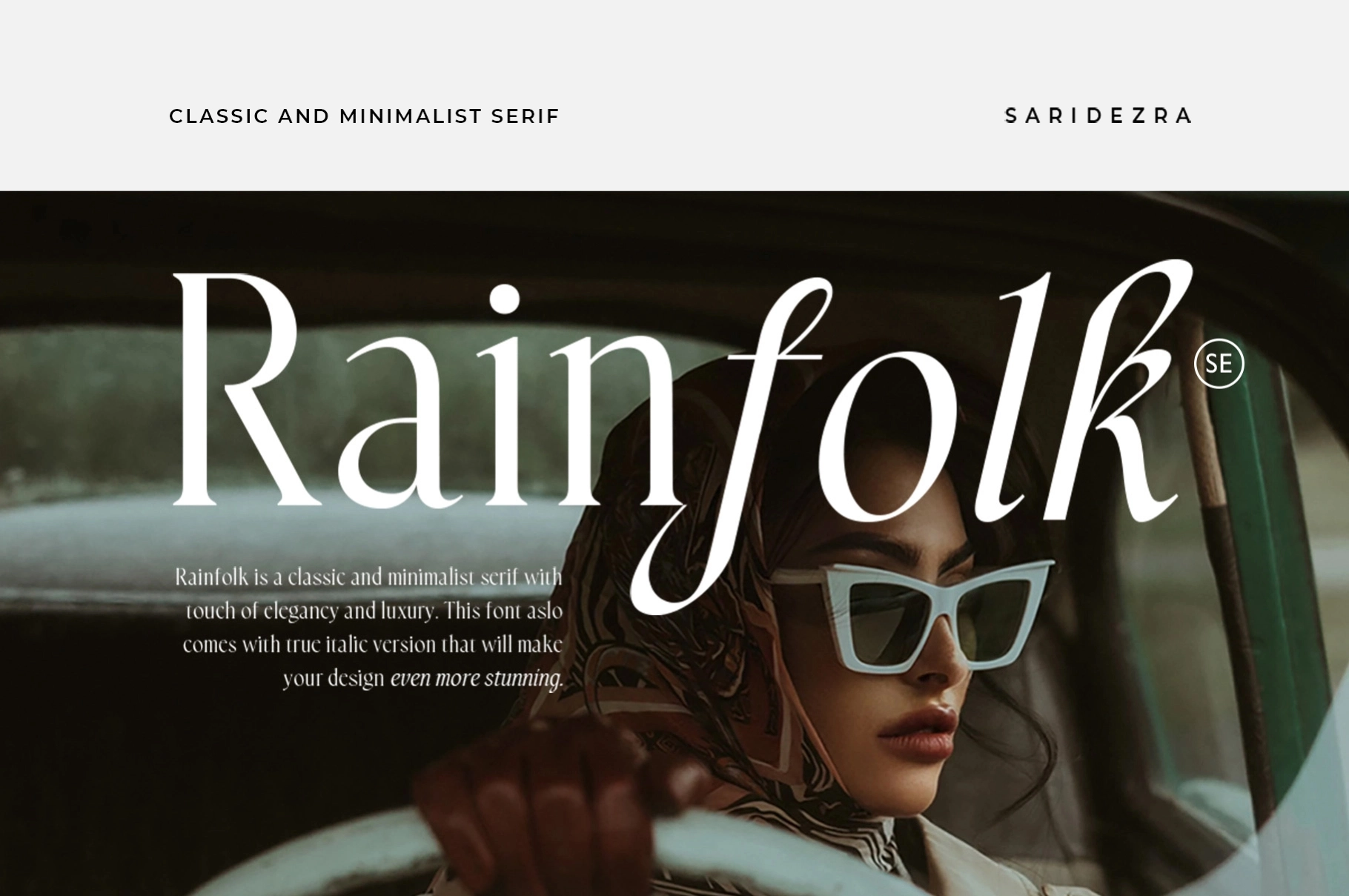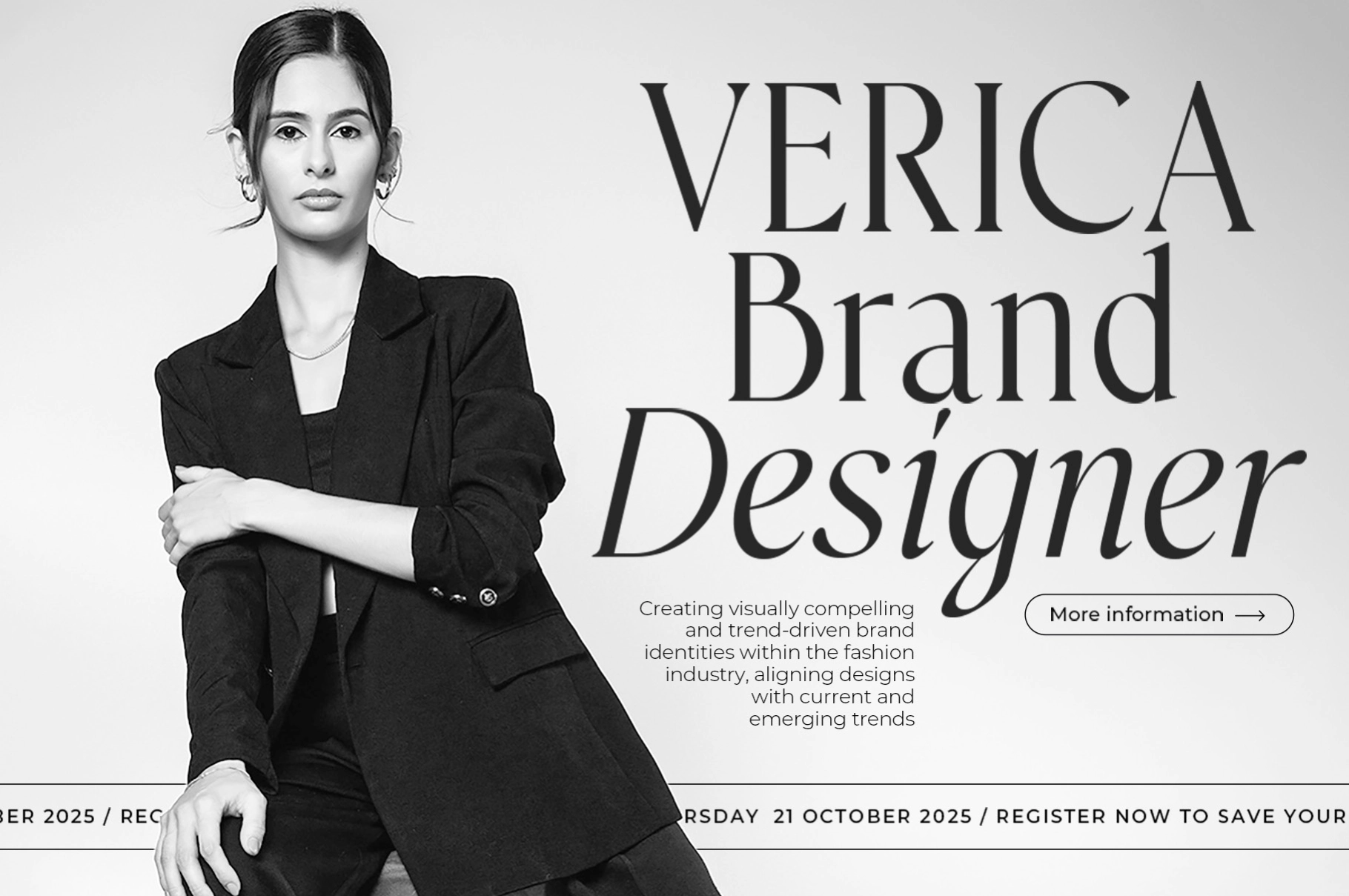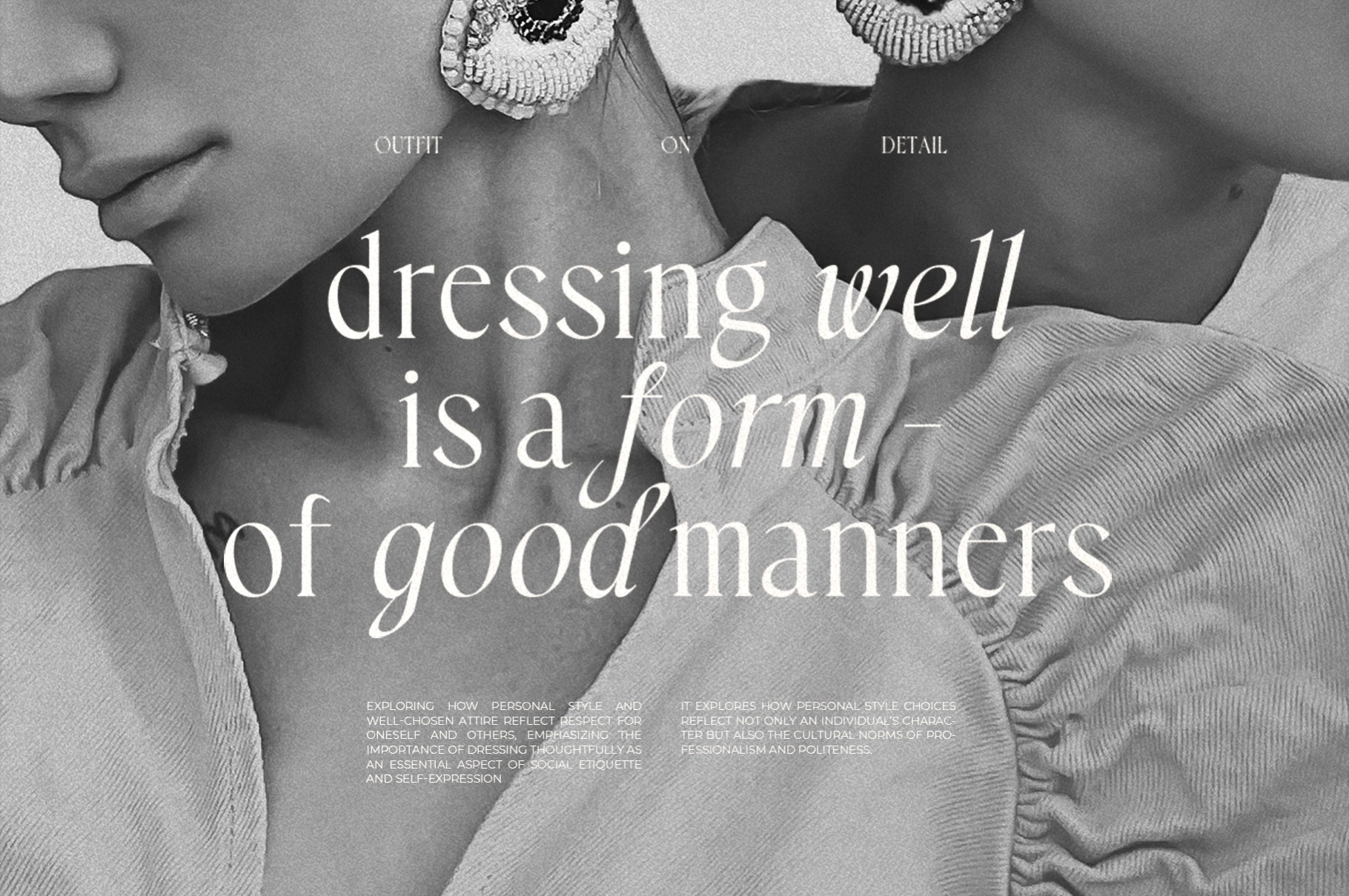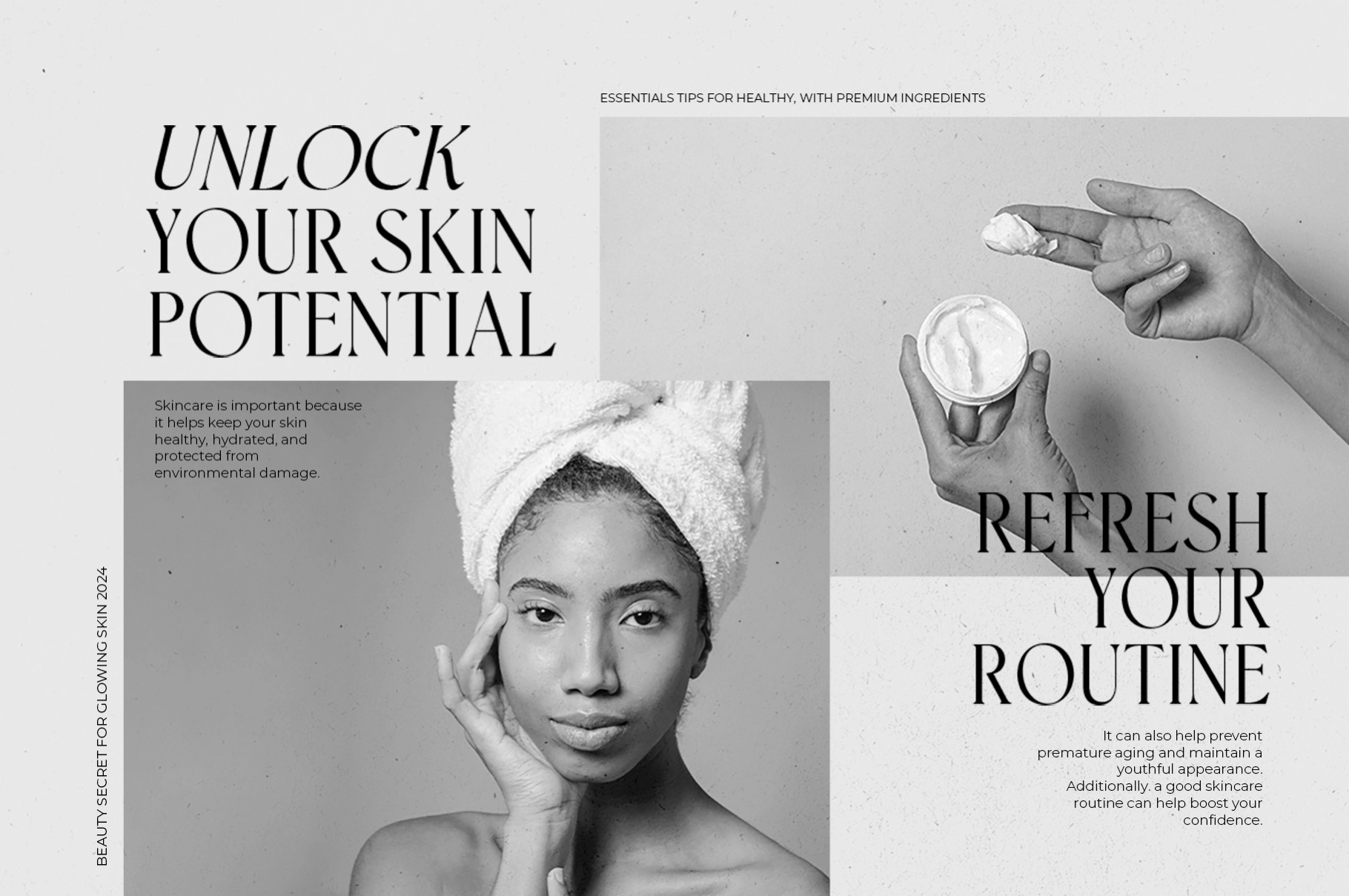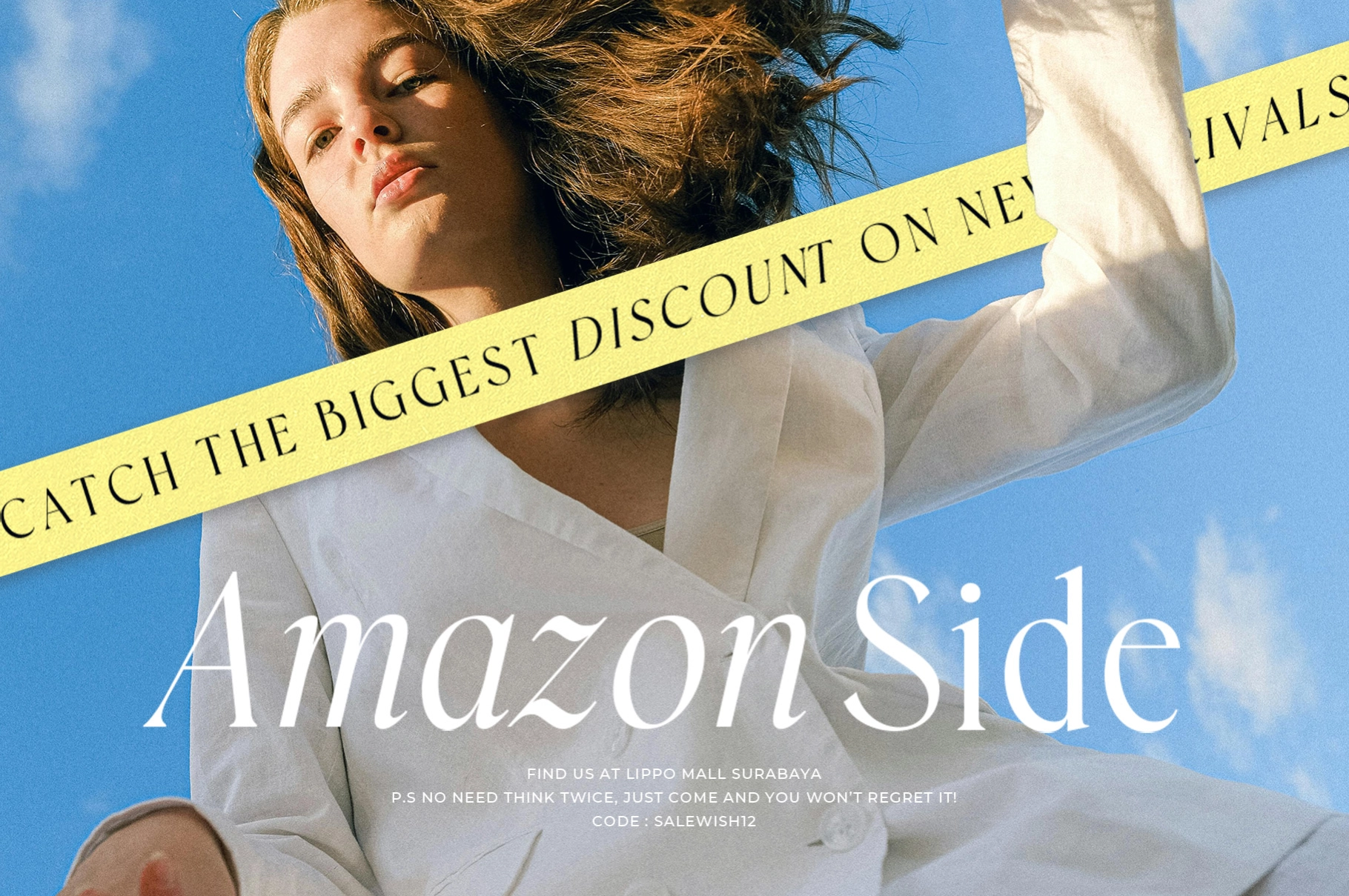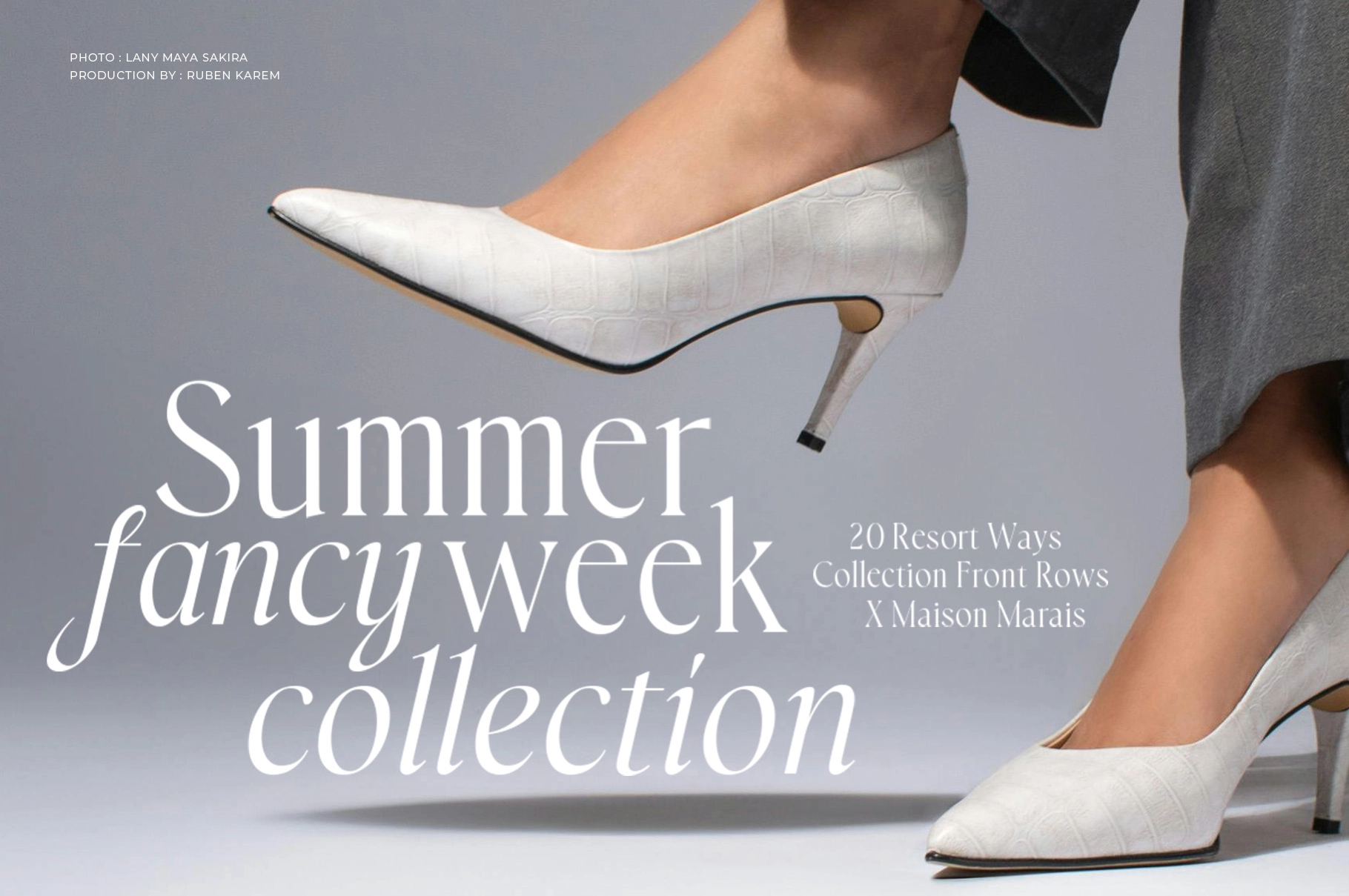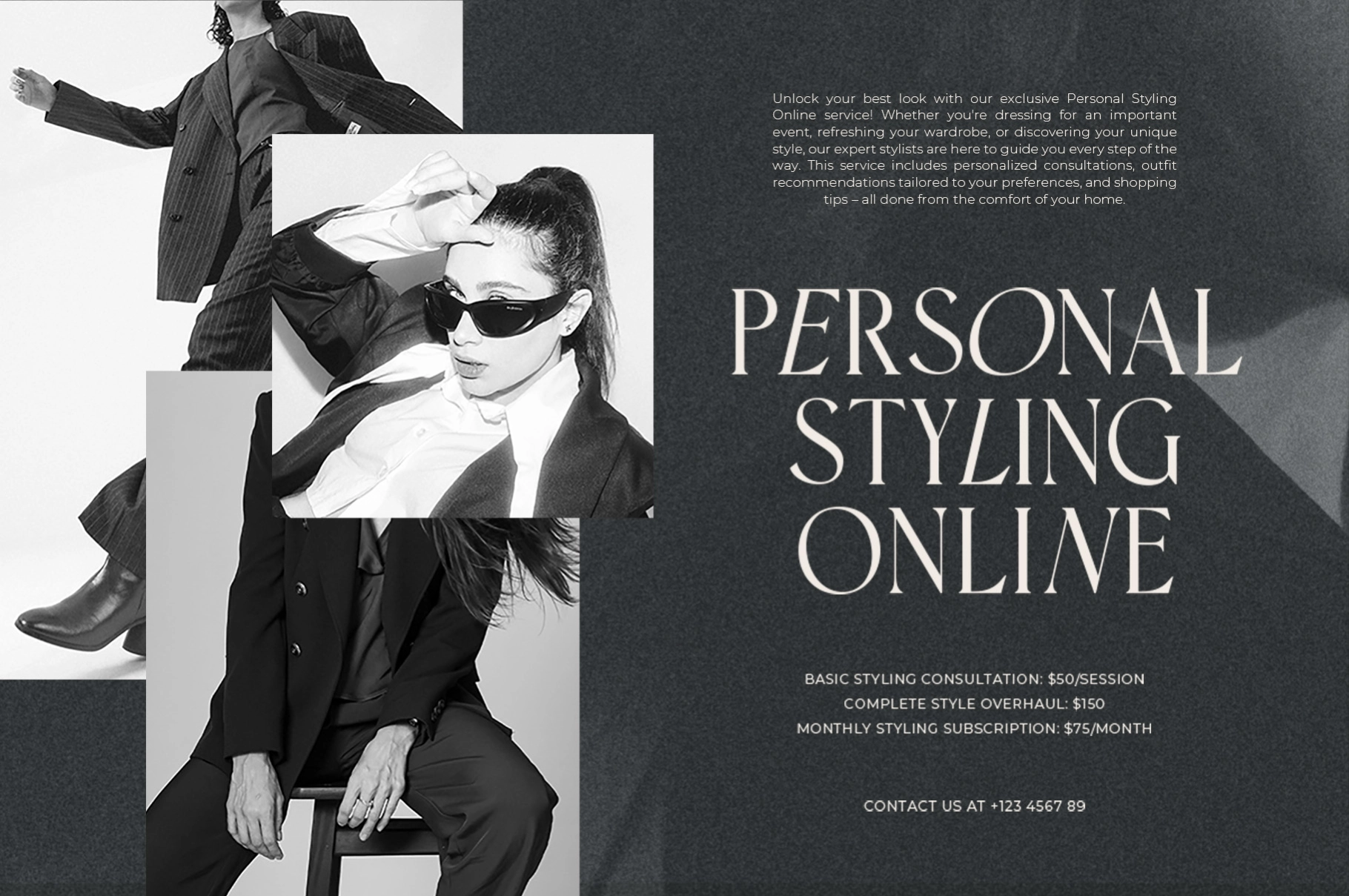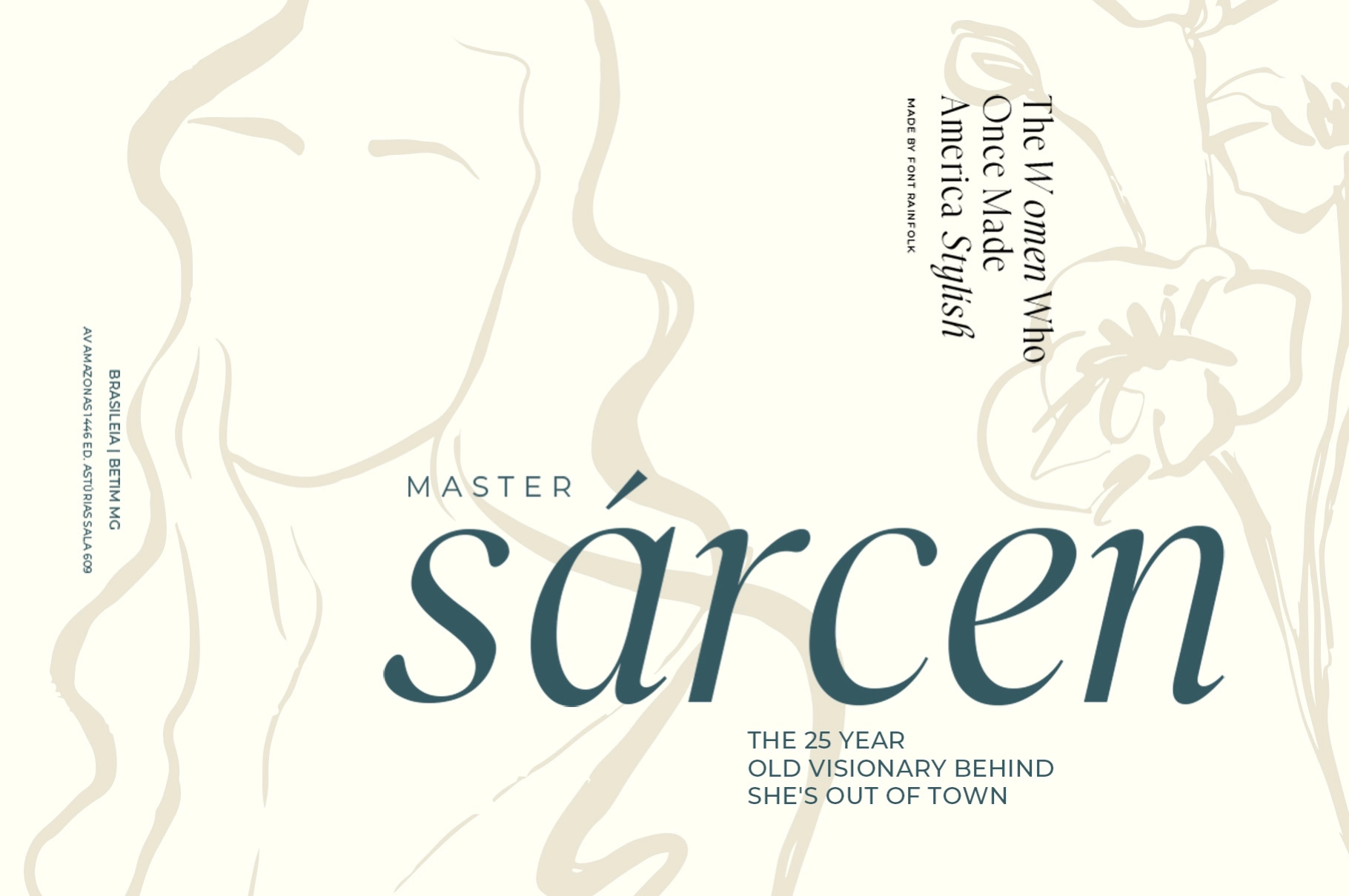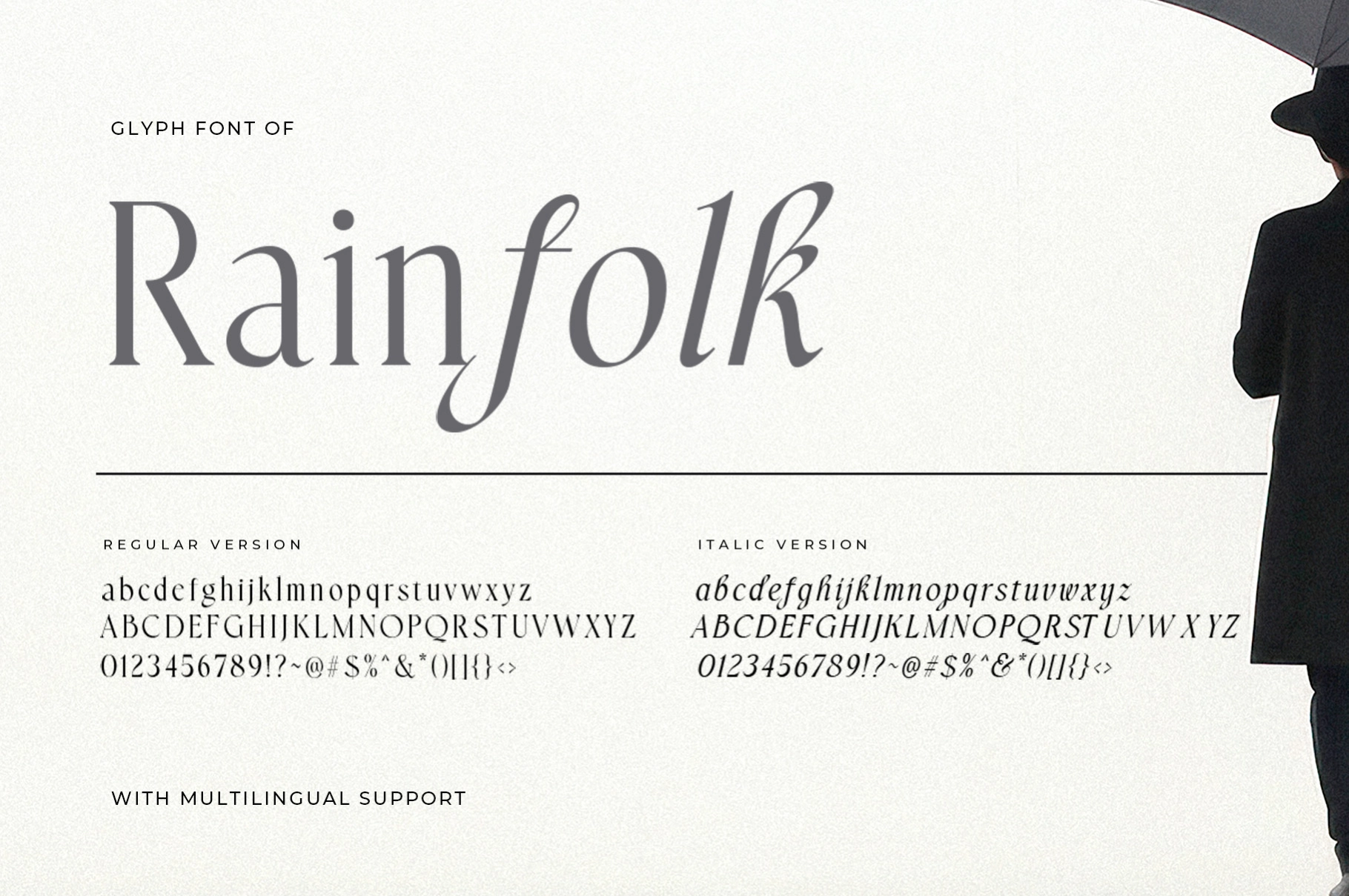
Rainfolk - Classic Minimalist Serif Font
A classic serif with tall proportions, graceful curves, and a polished editorial rhythm. Its sharp contrast and soft italic movement give fashion spreads, luxury branding, and refined layouts a poised look without trying too hard.
Rainfolk works well for wedding invitations, logo design, boutique packaging, magazine headlines, skincare branding, fashion campaigns, event posters, lookbooks, social media graphics, restaurant menus, stationery, and more. The italic style adds a smoother, dressier option for quotes, subheadings, accent words, and layouts that need a little drama at cocktail-hour volume.
• 2 styles: Regular, Italic